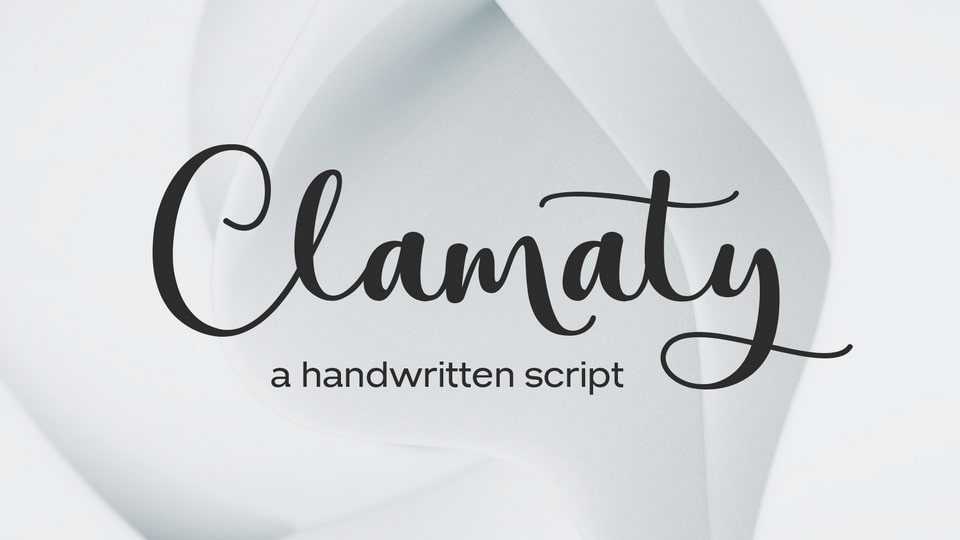
Download Clamaty Script, a font characterized by its elegant and feminine style. Clamaty Script is typically used for designs that require a delicate and beautiful touch.